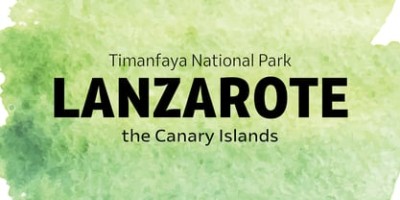
Nordique Pro Font excels in various design applications including Scandinavian brand identities, Nordic-inspired logos, winter sports materials, minimalist corporate designs, clean architectural presentations, modern lifestyle magazines, professional service communications, and sophisticated editorial layouts. This Nordic typeface adapts beautifully to both clean digital platforms and refined print materials, making it perfect for designers seeking Scandinavian elegance and professional Nordic sophistication in their visual communications.
Nordique Pro Font generates excitement among design professionals due to its Nordic character and Scandinavian styling that instantly conveys minimalist elegance and professional clarity. The font's clean letterforms and Nordic proportions create an immediate sense of sophistication and Scandinavian design excellence. Its professional personality makes it particularly appealing for brands wanting to communicate Nordic quality, minimalist aesthetics, and Scandinavian professionalism in their visual identity.
The Nordique Pro Font family includes multiple weights and styles such as Regular, Bold, Light, Medium, and Condensed variations. Each family member maintains Nordic design principles while offering distinct Scandinavian characteristics. The Light weight provides subtle Nordic elegance for refined applications, while the Bold version delivers strong impact for professional headlines and Scandinavian brand statements.
Nordic designers frequently choose Nordique Pro Font Free Download for projects requiring both Scandinavian authenticity and professional distinction. This typeface demonstrates remarkable effectiveness across design industries including architecture firms, lifestyle brands, professional services, and Nordic companies. Its Scandinavian character allows organizations to communicate Nordic excellence while maintaining excellent readability and clean visual appeal that reflects the timeless elegance of Scandinavian design principles.